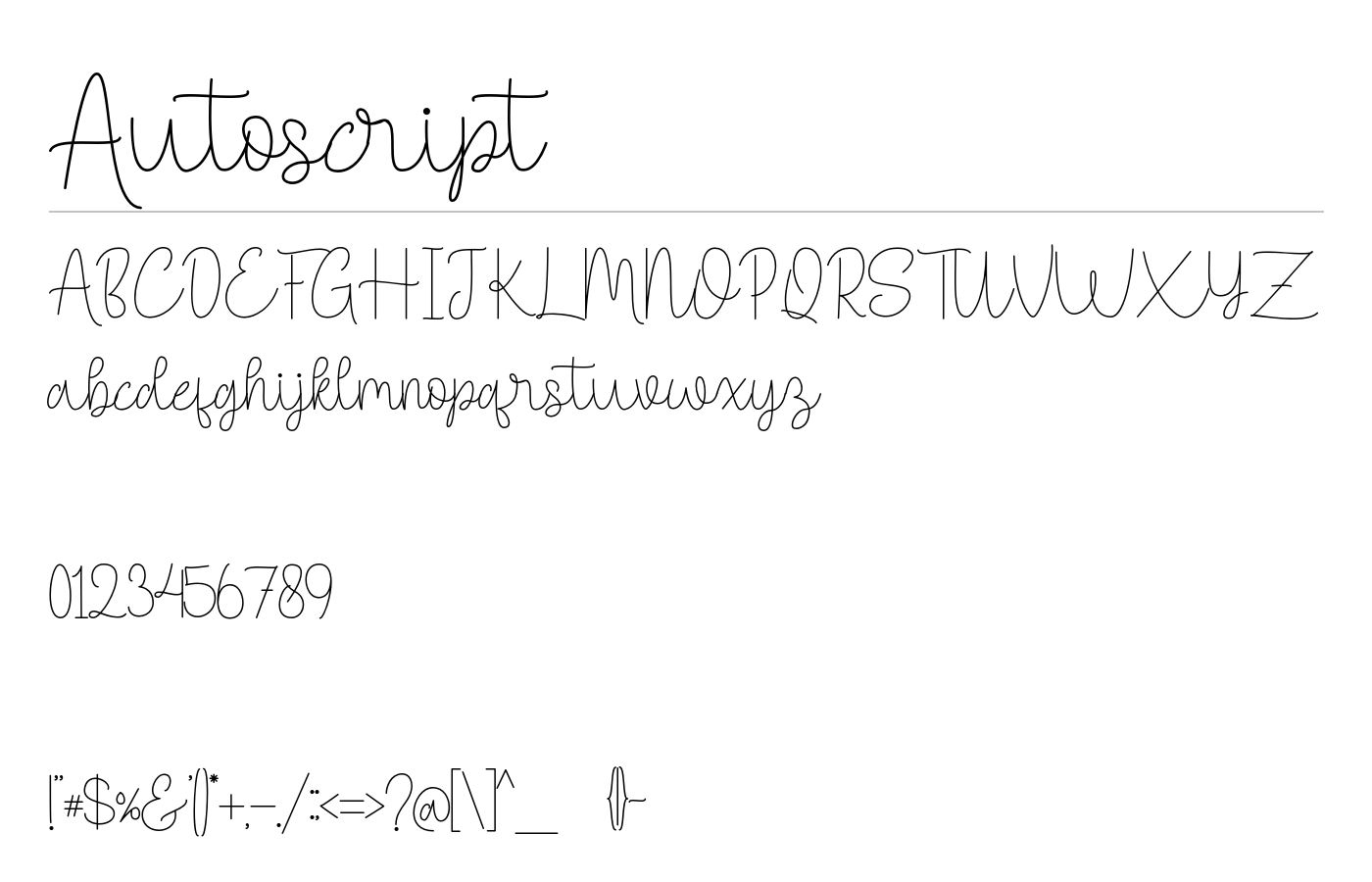
Autoscript is a delicate, hand-drawn script font with a light weight and tall, slender letterforms that convey an airy, whimsical charm. Its fine, continuous strokes and subtle irregularities give it a personal, approachable feel perfect for casual invitations, greeting cards, and creative branding that seeks a friendly and artistic touch. This font works best in designs where a soft, handwritten style is needed to create warmth and individuality.
Autoscript Font
About Autoscript Font